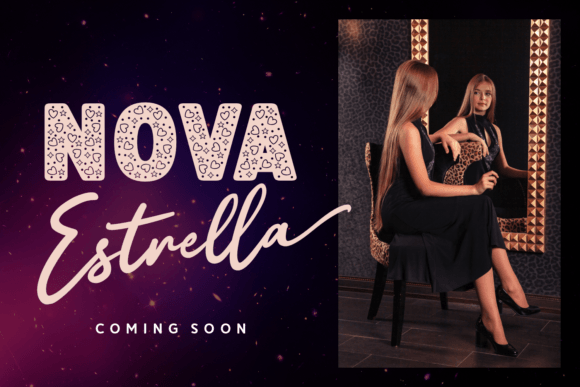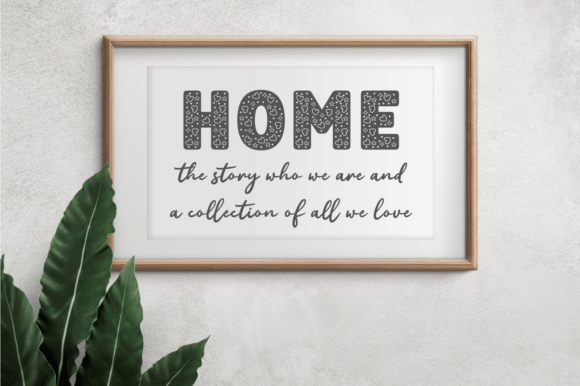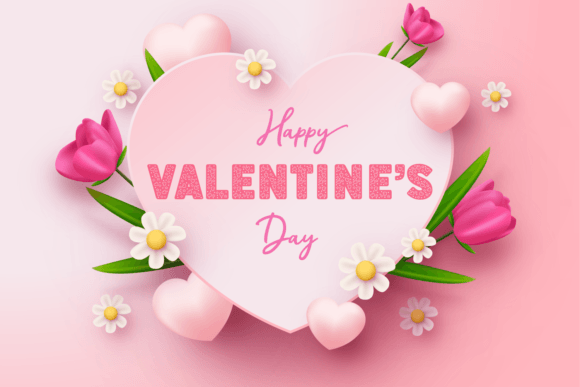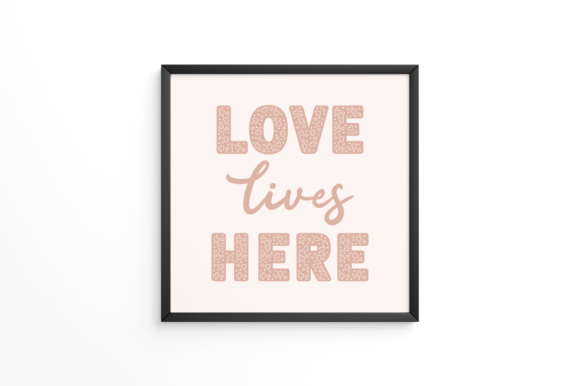
Introduction to Loving Stars Font
Have you ever been working on a creative project, pouring your heart and soul into it, and then suddenly, you need a font that perfectly captures the essence of love and magic? For designers, finding that perfect font can be the key to elevating their work and making it truly special. That’s where the Loving Stars Font comes in – a delightful and charming decorative font that’s sure to add a touch of whimsy to any design project.
With its intricate composition of petite hearts, dainty stars, and tiny dots, the Loving Stars Font is a design resource that’s perfect for creating invitations, event posters, brand names, greeting cards, and much more. Its high-quality design and transparent background make it a versatile choice for any creative project, whether you’re working on a personal or professional project.
Key Features of Loving Stars Font
- High-quality design resource with a transparent background, ideal for creative projects
- Perfect for adding a touch of whimsy and magic to your design, with a unique and playful style
- Includes a range of stars and other celestial elements, allowing for endless creative possibilities
- Designed to be versatile and adaptable, suitable for use in a variety of design contexts, from digital to print
Honest Review: Loving Stars Font
I recently stumbled upon the Loving Stars Font while searching for a design resource for a creative project. I was immediately drawn to its whimsical and playful feel, perfect for adding a touch of magic to my designs.
- ✨ The font’s high quality and crisp lines make it perfect for printing or using on high-resolution displays.
- ✨ The transparent background allows for seamless integration with any design or image.
- ⚠️ The font is not as versatile as some other options, and it may not be suitable for all types of designs.
- ⚠️ Some characters may not be fully supported, which could lead to display issues in certain applications.
Overall, I’m impressed with the Loving Stars Font, and I would definitely recommend it for creative projects that require a touch of whimsy and charm. While it may not be perfect, its unique feel and high quality make it a valuable addition to any designer’s toolkit.
Tips for Getting the Most Out of Loving Stars Font
Use the Loving Stars Font on a transparent background for a more versatile design element.
Combine the font with other design elements for a unique and creative project.
Common Use Cases for Loving Stars Font
The Loving Stars Font is perfect for:
Children’s birthday party decorations
Any project requiring a whimsical and playful design element